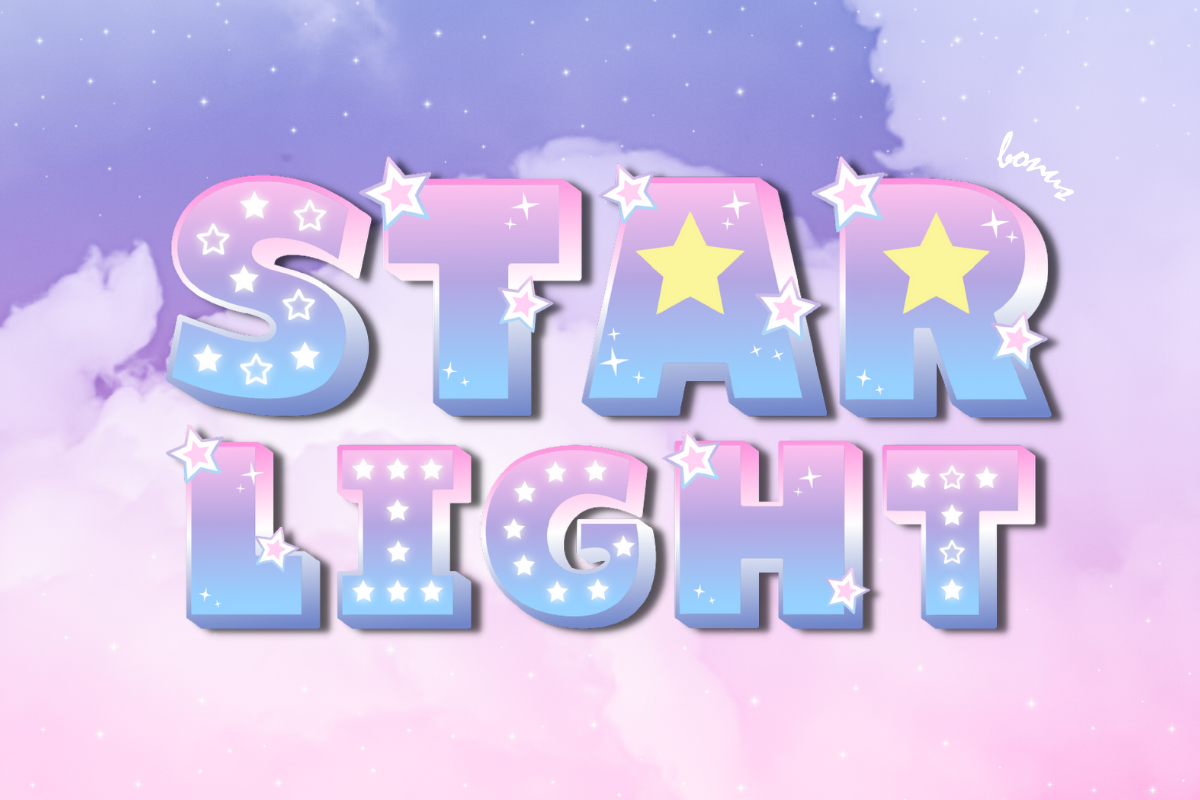
Starlight Y2K Display Font + Bonus
Starlight is a delightful and fanciful 3D-style display font, ideal for signage, t-shirts, and designs that exude a playful, carnival-like vibe or evoke themes of stars and space. Moreover, you’ll receive 216 PNG files of alphabet characters as a special bonus, perfect for embellishing your designs.